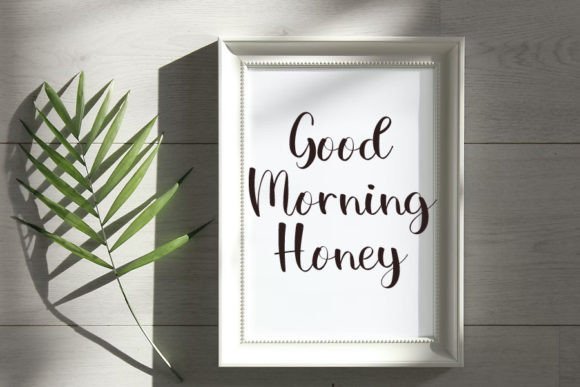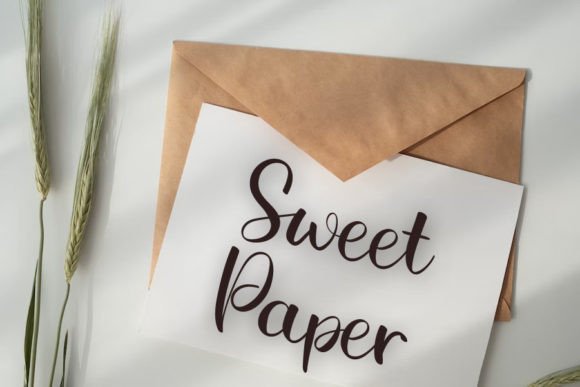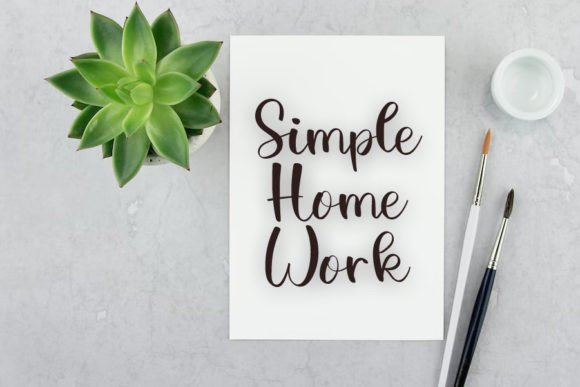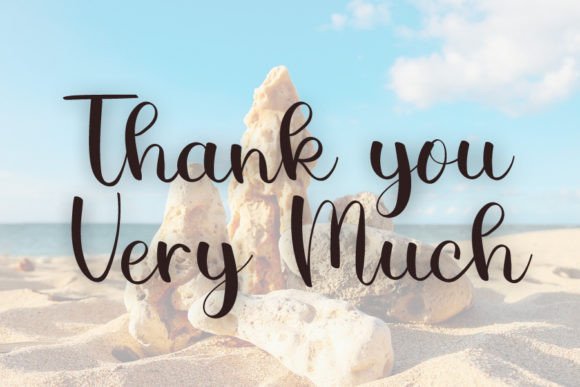
Hawaii Beach Font: Add a Touch of Tropical Romance to Your Designs
Are you looking for a font that can evoke the feeling of a tropical paradise? Look no further than the Hawaii Beach font. This enchanting handwritten font is perfect for designers and crafters who want to add a romantic touch to their projects. With its versatile script style, Hawaii Beach font can be used in a wide range of applications, from greeting cards to headlines, and is sure to make your designs stand out.
What Makes Hawaii Beach Font So Special?
The Hawaii Beach font is a beautifully crafted handwritten font that is inspired by the sun-kissed beaches and lush landscapes of Hawaii. Its elegant and flowing script style is perfect for creating romantic and whimsical designs that are sure to capture the hearts of your audience. The font features a wide range of characters, including uppercase and lowercase letters, numbers, and punctuation marks, making it a versatile choice for any design project.
Key Features of Hawaii Beach Font
- Handwritten script style: The Hawaii Beach font features a beautiful handwritten script style that is perfect for creating romantic and whimsical designs.
- Versatile: The font can be used in a wide range of applications, from greeting cards to headlines, and is suitable for both personal and commercial projects.
- Elegant and flowing: The font’s elegant and flowing script style is perfect for creating designs that are both sophisticated and eye-catching.
- Wide range of characters: The font features a wide range of characters, including uppercase and lowercase letters, numbers, and punctuation marks.
Uses of Hawaii Beach Font
The Hawaii Beach font is a versatile font that can be used in a wide range of applications, including:
- Greeting cards: The font is perfect for creating romantic and whimsical greeting cards for special occasions such as weddings, anniversaries, and Valentine’s Day.
- Headlines: The font’s elegant and flowing script style makes it perfect for creating eye-catching headlines for magazines, newspapers, and online publications.
- Logos and branding: The font can be used to create beautiful and elegant logos and branding materials for businesses and organizations.
- Invitations and stationery: The font is perfect for creating romantic and whimsical invitations and stationery for special occasions such as weddings and baby showers.
Tips for Using Hawaii Beach Font
Here are some tips for using the Hawaii Beach font in your designs:
- Use it sparingly: The font’s elegant and flowing script style can be overwhelming if used excessively. Use it sparingly to create a sense of elegance and sophistication.
- Pair it with other fonts: The font can be paired with other fonts to create a unique and eye-catching design. Try pairing it with a sans-serif font for a modern and elegant look.
- Experiment with colors: The font looks beautiful in a range of colors, from soft pastels to bold and bright colors. Experiment with different colors to find the one that works best for your design.
The Hawaii Beach font is a beautiful and versatile handwritten font that is perfect for designers and crafters who want to add a romantic touch to their projects. With its elegant and flowing script style, the font can be used in a wide range of applications, from greeting cards to headlines. Whether you’re looking to create a romantic and whimsical design or a sophisticated and elegant one, the Hawaii Beach font is sure to be a great choice.
In conclusion, the Hawaii Beach font is a must-have for designers and crafters who want to add a touch of tropical romance to their designs. With its beautiful handwritten script style and versatile nature, it’s sure to be a great addition to your font collection.